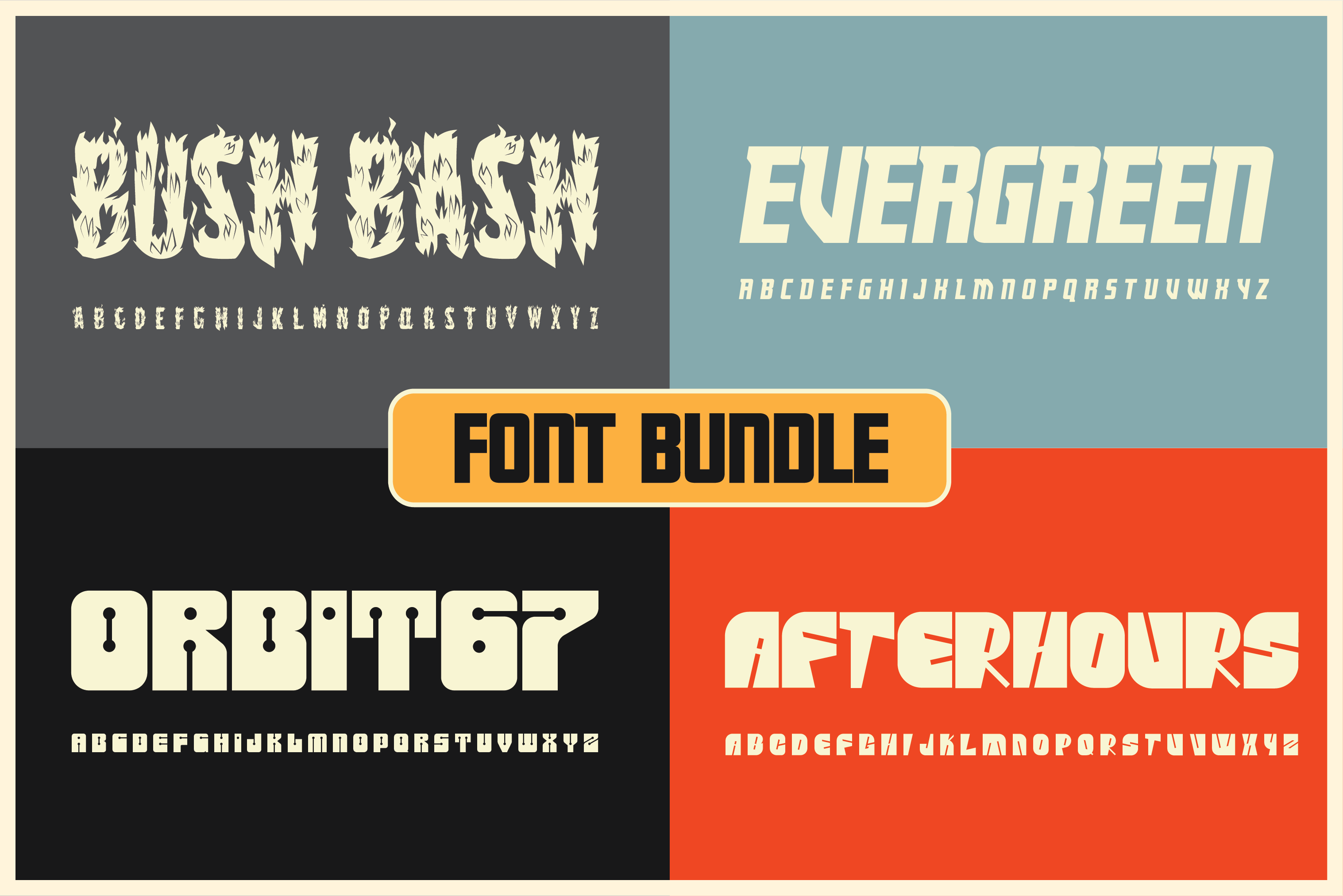
Font Bundle Four Pack
Bend Industries Font Pack 2 – Bold & Versatile Display Fonts Level up your typography with Font Pack 2 from Bend Industries—an eclectic set of four bold, original display fonts: Bush Bash, Evergreen, Orbit67, and After Hours. Each typeface brings its own voice, from rugged and raw to slick and space-age.
Whether you're crafting a gritty brand, designing retro-futuristic posters, or adding character to apparel and packaging, this bundle offers the perfect blend of utility and edge.
What’s Included: Bush Bash – a distressed brush font with wild personality
Evergreen – clean and versatile with subtle mid-century flavor
Orbit67 – geometric and futuristic, inspired by atomic-era aesthetics
After Hours – funky angular display font
Perfect For: Brand identity
Vintage & retro design
T-shirt graphics
Music & event posters
Creative editorial layouts